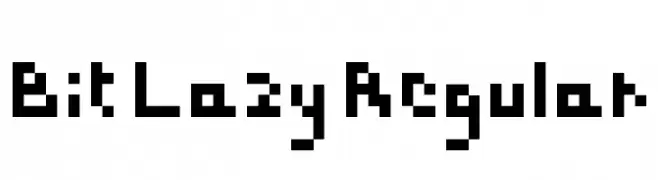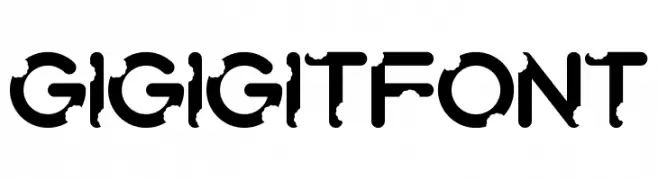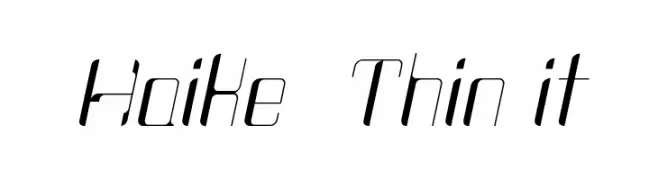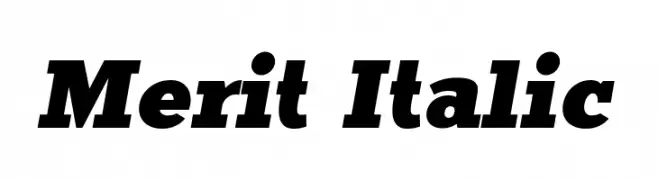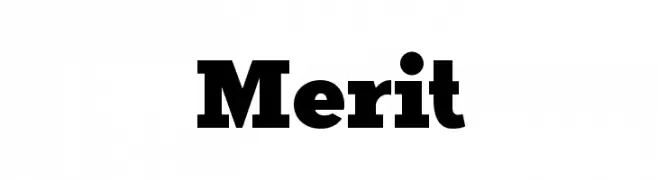
( Otto Maurer Design - Otto Maurer - www.myfonts.com/foundry/Otto_Maurer/ )
A sleek, modern font with thin, elongated characters and a futuristic style.
( Otto Maurer Design - Otto Maurer - www.myfonts.com/foundry/Otto_Maurer/ )
A bold, italicized font with a modern, dynamic style.
( Paul Sasnauskas )
A pixelated, blocky font with a retro digital aesthetic.
( Press Gang Studios - Andeh Pinkard - comicfontsby.tehandeh.com )
A bold, italic font with sharp angles and high contrast, perfect for dynamic designs.
( Press Gang Studios - Andeh Pinkard - comicfontsby.tehandeh.com )
A bold, italicized font with sharp angles and dynamic energy.
( Press Gang Studios - Andeh Pinkard - comicfontsby.tehandeh.com )
A bold, angular, and dynamic font with a modern, edgy style.
( Rahsia Design )
A bold, geometric font with a futuristic and modern style.
( Scott Simpson )
A bold slab serif font with strong, block-like serifs and a modern yet classic appeal.
( Scott Simpson )
A bold, italicized font with strong contrast and dynamic style.
( TwoNineFive - Maximillian Limpo )
A bold, blocky font with a digital, pixelated style enclosed in squares.